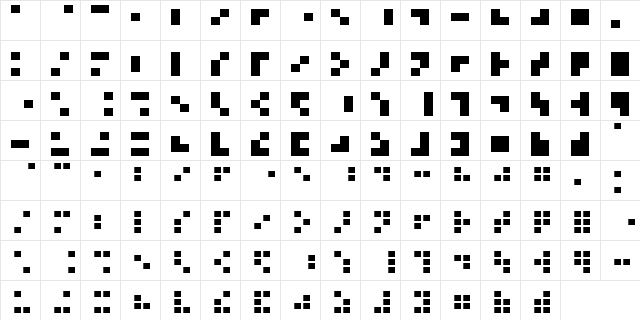
Complete Arial Alternative Symbol Regular glyph index. Displaying only characters natively supported by Arial Alternative Symbol Regular font.
Arial Alternative Symbol is a composed and adaptable typeface that performs quietly and consistently across a wide range of design contexts.